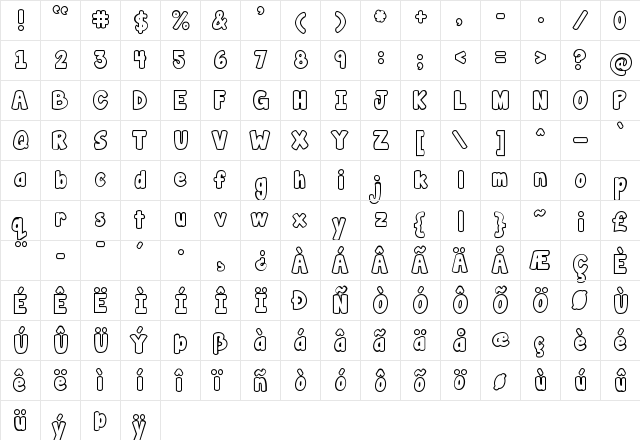
Janda Manatee Bubble Regular
| Foundry | Kimberly Geswein |
| Designer | Kimberly Geswein |
Design Context for Janda Manatee Bubble Typeface
Janda Manatee Bubble has an approachable, lighthearted character — its loose, expressive forms are well-suited to children's content, casual branding, and fun-first design.
Font Pairing: Pairs well with a rounded or humanist sans for body copy, maintaining the friendly tone without relying on Janda Manatee Bubble to carry extended reading.
Pro Tip: Avoid using Janda Manatee Bubble for long passages of text — it works best for headlines, labels, and short calls to action.